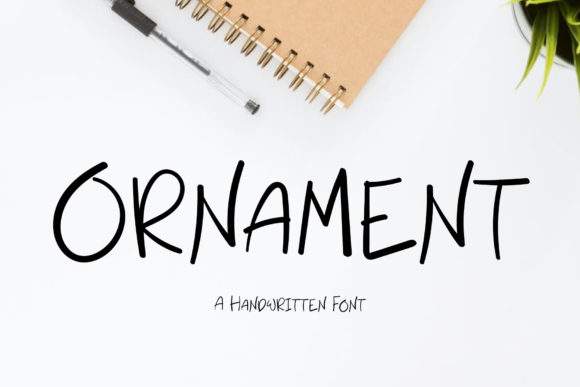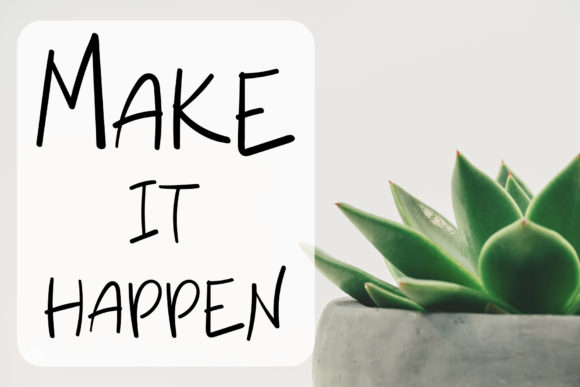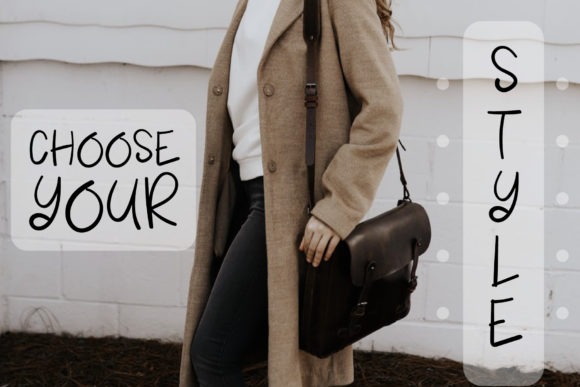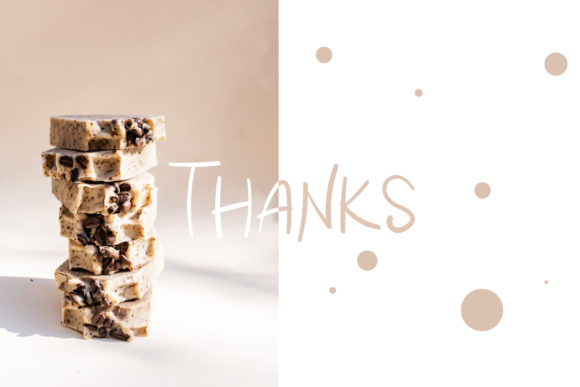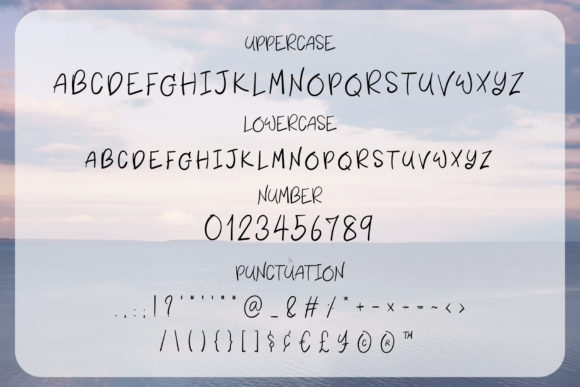
About Ornament Font
Ornament is a fun, natural and quirky handwritten font. It has a neat style and it will most certainly complement each of your trendy, informal designs.